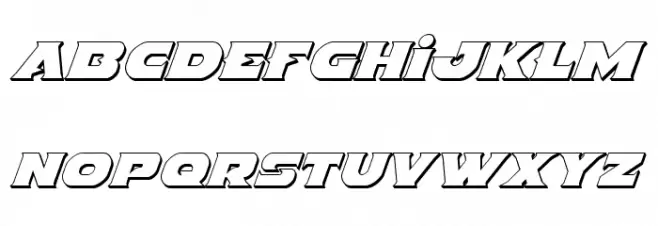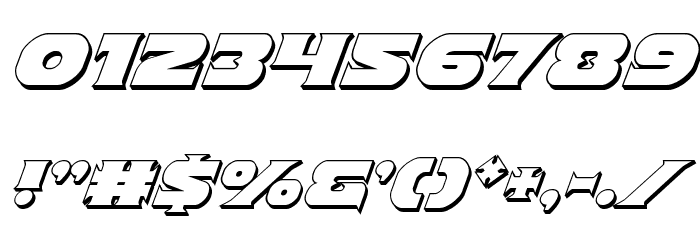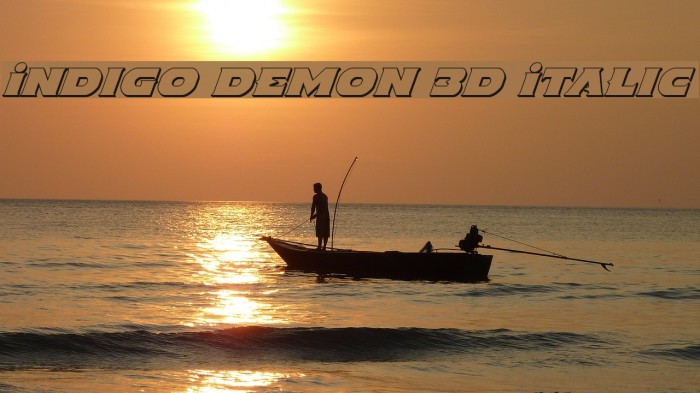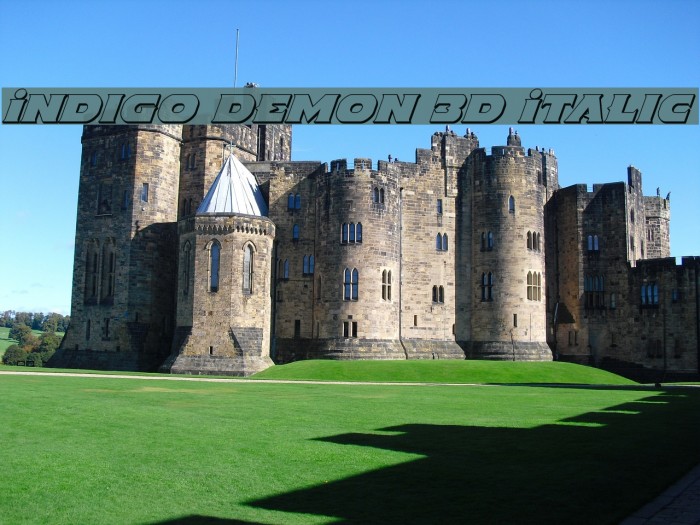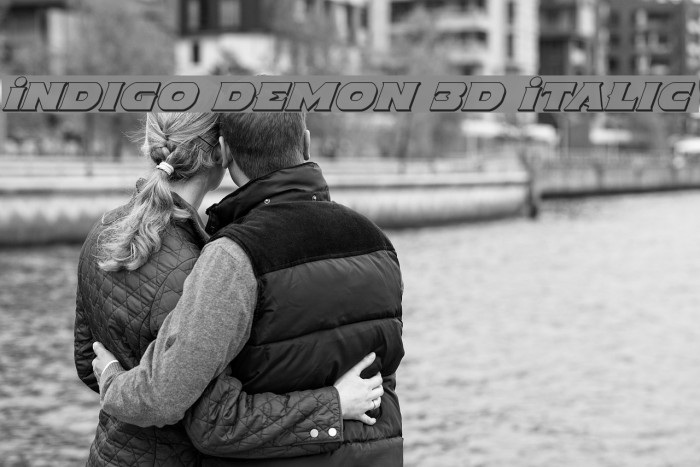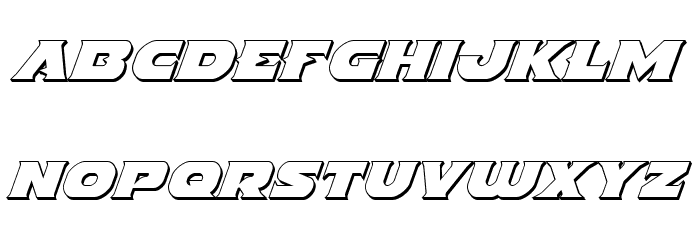
Indigo Demon 3D Italic
This font features a bold, three-dimensional design with a strong italic slant, giving it a dynamic and futuristic appearance. The characters are outlined, creating a sense of depth and movement. The angular and geometric shapes contribute to a modern and edgy style, making it stand out in any design. The uppercase and lowercase letters maintain a consistent style, with sharp edges and a uniform thickness. The numbers and special characters follow the same aesthetic, ensuring a cohesive look across all text elements.
A bold, 3D italic font with a futuristic and dynamic style.
- Proposed Projects: Ideal for video game titles, sci-fi movie posters, tech branding, and dynamic advertising campaigns.
- Overall Style: Futuristic